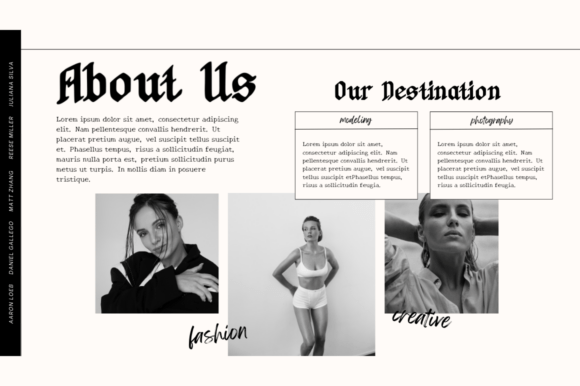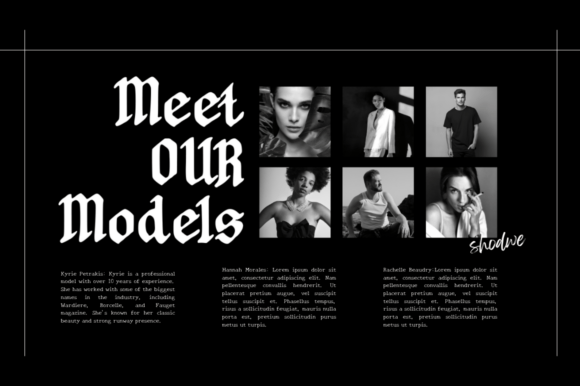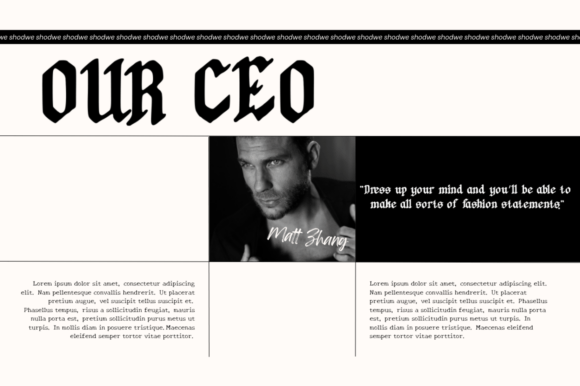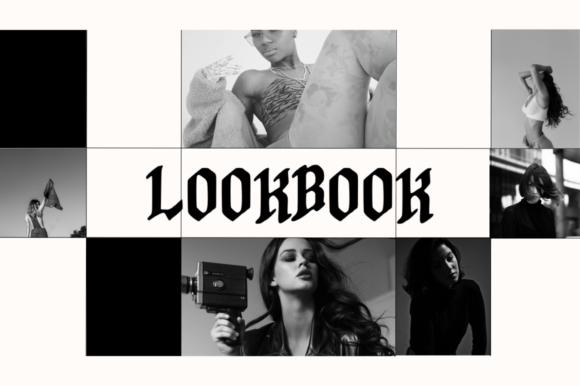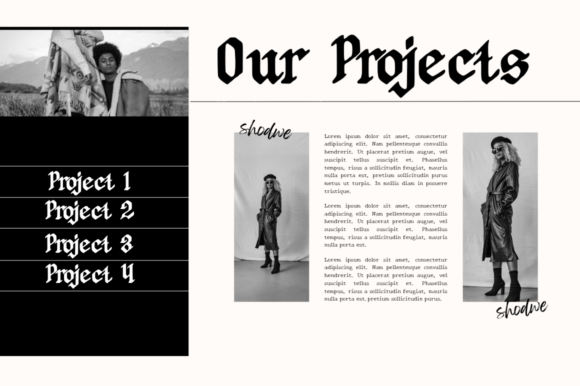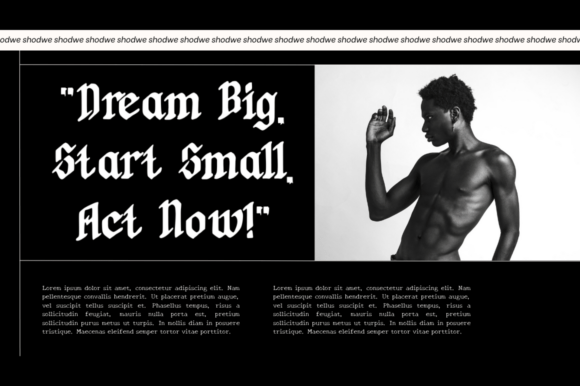
Introduction to Pebbleblaze Font
Do you remember that moment when you stumble upon a dusty old book in a thrift store, and the worn cover transports you to another era? For designers, that feeling is what drives us to create. And when we find the perfect font to evoke that sense of nostalgia, it’s like striking gold. That’s exactly what the Pebbleblaze Font does – it brings the medieval spirit to your design, giving it a timeless and authoritative feel.
Whether you’re working on a vintage poster, historical book cover, or gothic branding project, this font is a valuable design resource. With its high-quality, transparent background, you can easily integrate it into your creative project. And the best part? You can download it for free, making it an accessible tool for designers of all levels.
- High-quality design: The Pebbleblaze Font is designed with precision and care, making it perfect for any creative project that requires a professional touch.
- Unique character set: The font features a unique character set, including a range of special characters and symbols, making it perfect for designers looking to add a touch of personality to their creative project.
- Perfect for creative projects: The Pebbleblaze Font is designed to be versatile and easy to use, making it perfect for a wide range of creative projects, from graphic design to digital art.
I recently had the chance to try out the Pebbleblaze Font, and I must say it’s been a game-changer for my creative projects. ✨ The high quality of the font is immediately noticeable, with clean lines and a unique aesthetic that adds a touch of sophistication to any design.
The font is also incredibly versatile, making it perfect for a wide range of creative projects. I’ve used it for logos, branding materials, and even website design, and it’s consistently delivered excellent results. Plus, the transparent background option allows for seamless integration with any background image or color scheme.
- High quality and crisp typography
- Unique aesthetic that adds a touch of sophistication
- Perfect for creative projects, including logos, branding materials, and website design
Overall, I’m thoroughly impressed with the Pebbleblaze Font. It’s a valuable resource for any designer looking to add a touch of sophistication to their creative projects. And the best part? It’s available for free download, making it an absolute steal.
The Pebbleblaze Font is a high-quality, free download design resource perfect for any creative project. With a transparent background, this font is easy to use and customize in your favorite design software.